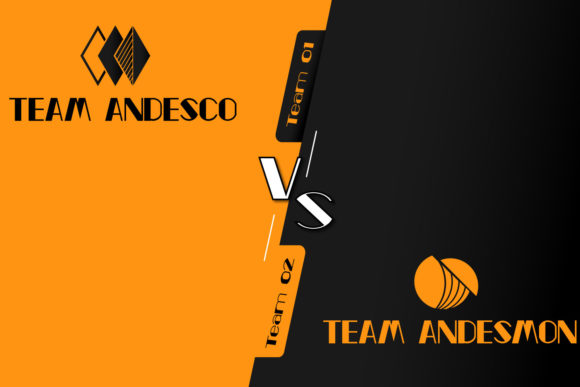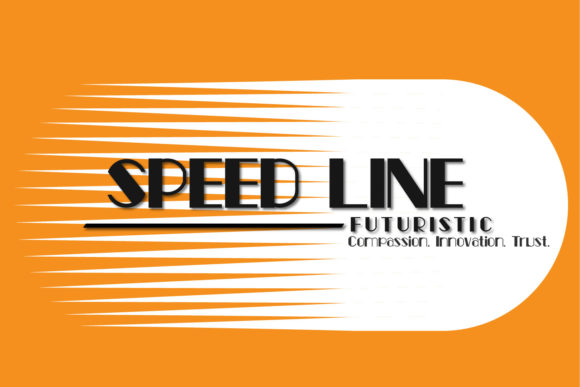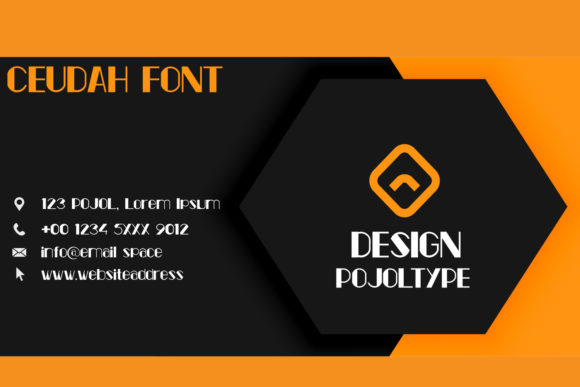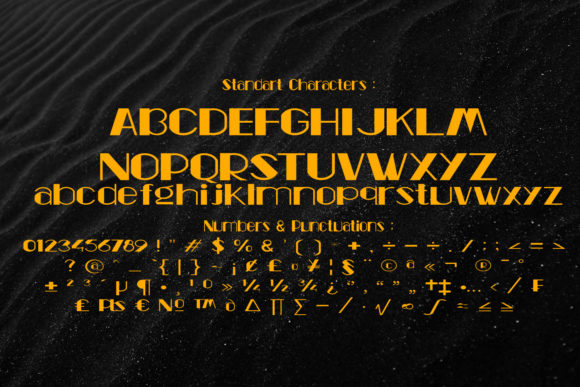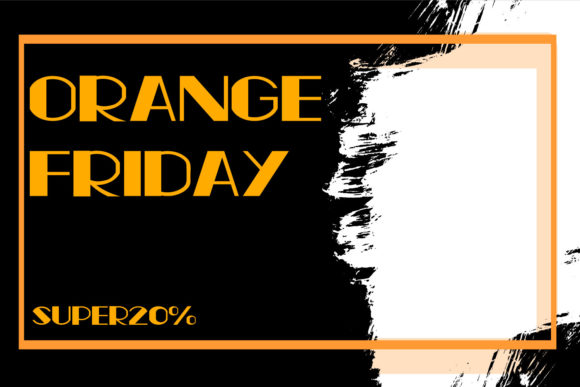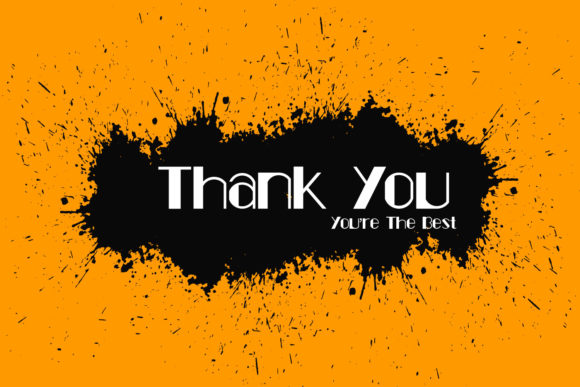
Introducing Ceudah Font: Elevate Your Designs with Elegance and Boldness
Are you tired of using the same old fonts in your designs? Look no further than Ceudah Font, an elegant and bold display font that’s sure to take your creations to the next level. With its incredibly versatile style, Ceudah is perfect for designers and crafters who want to add a touch of sophistication and glamour to their work.
The Perfect Font for Creative Projects
Ceudah Font is designed to be versatile, making it suitable for a wide range of creative projects. Whether you’re creating gorgeous invitations, beautiful stationary art, eye-catching social media posts, or anything in between, Ceudah is the perfect choice. Its elegant and bold style ensures that your designs will stand out from the crowd and leave a lasting impression.
Key Features of Ceudah Font
• Elegant and Bold Style: Ceudah Font boasts an elegant and bold style that’s perfect for making a statement.
• Incredibly Versatile: With Ceudah, you can create a wide range of designs, from invitations and stationary art to social media posts and more.
• Easy to Read: Despite its bold style, Ceudah is easy to read, making it perfect for designs where you want to make a statement without sacrificing legibility.
• Scalable: Ceudah Font is highly scalable, ensuring that it looks great in any size or format.
Why Choose Ceudah Font?
So, why should you choose Ceudah Font for your designs? Here are just a few reasons:
• Unique Style: Ceudah Font has a unique and distinctive style that’s sure to set your designs apart from the crowd.
• High-Quality Design: Ceudah Font is designed to the highest standards, ensuring that it looks great in any design.
How to Use Ceudah Font in Your Designs
Using Ceudah Font in your designs is easy. Here are a few tips to get you started:
• Pair it with Other Fonts: Ceudah Font pairs well with other fonts, making it easy to create unique and interesting designs.
• Experiment with Colors: Ceudah Font looks great in a wide range of colors, so don’t be afraid to experiment and find the perfect color for your design.
• Use it for Headings: Ceudah Font is perfect for headings and titles, making it a great choice for designers who want to make a statement.
• Try it on Different Backgrounds: Ceudah Font looks great on a wide range of backgrounds, so try it out on different textures, patterns, and colors to see what works best.
Inspiration for Your Ceudah Font Designs
Need some inspiration for your Ceudah Font designs? Here are a few ideas to get you started:
• Wedding Invitations: Ceudah Font is perfect for wedding invitations, with its elegant and bold style making it a great choice for formal events.
• Social Media Posts: Ceudah Font is great for social media posts, with its bold style making it perfect for grabbing attention and standing out in crowded feeds.
• Stationary Art: Ceudah Font is a great choice for stationary art, with its elegant style making it perfect for creating beautiful and sophisticated designs.
• Event Promotions: Ceudah Font is perfect for event promotions, with its bold style making it great for grabbing attention and promoting events.